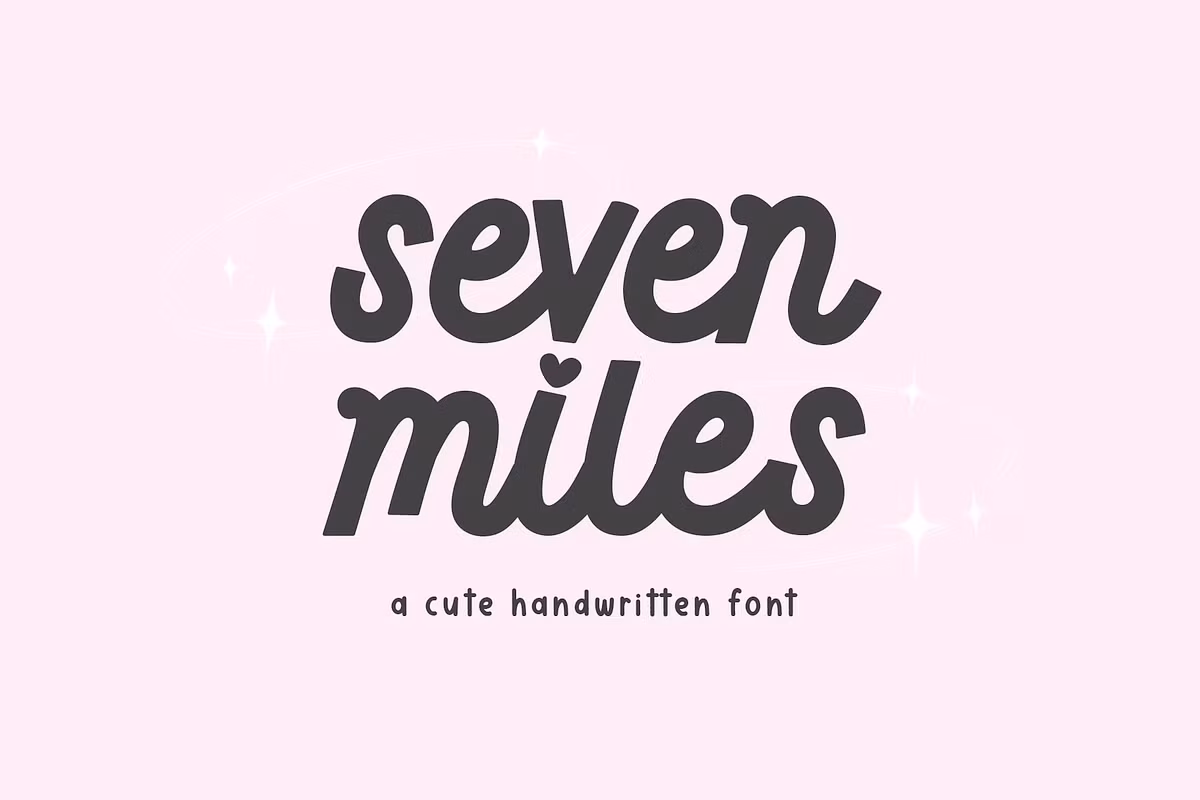
Seven Miles | Cute Font Free Download is a fun and cheerful typeface that radiates positivity, making it perfect for playful and heartwarming designs. Please note: you must purchase this font for commercial use, but you can test it through a free download. With its rounded letterforms, bouncy baseline, and whimsical charm, Seven Miles is ideal for kids’ projects, greeting cards, stickers, quotes, branding, and social media posts.
This font is all about spreading smiles—its lighthearted style makes any design feel friendly and full of life. Whether you’re creating a fun product label or a colorful Instagram graphic, Seven Miles | Cute Font Free Download brings personality and joy to your typography. Fully compatible with Adobe Illustrator, Photoshop, Canva, and other popular design tools. Download it today for personal use and let your creativity go the extra mile with the sweet charm of Seven Miles.